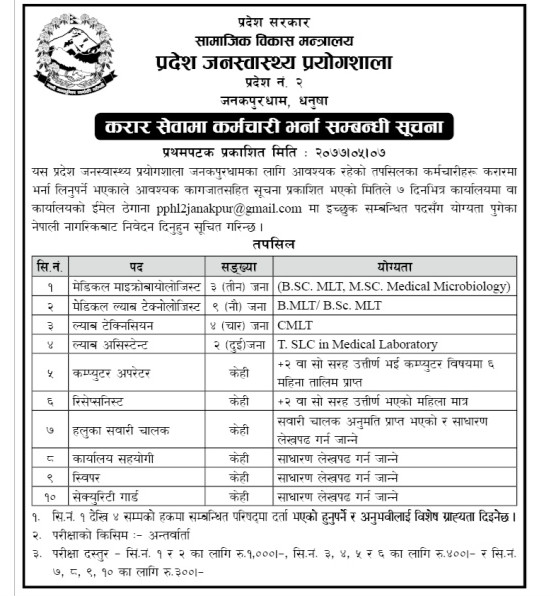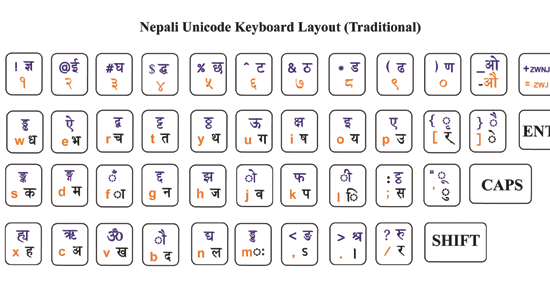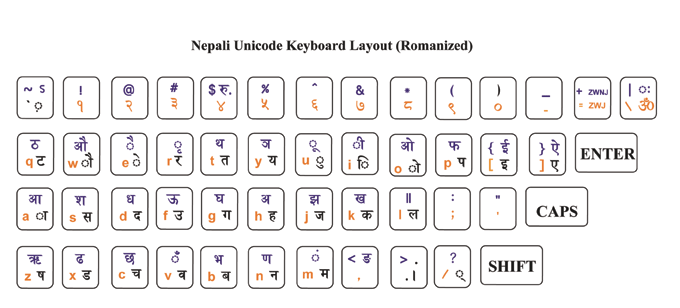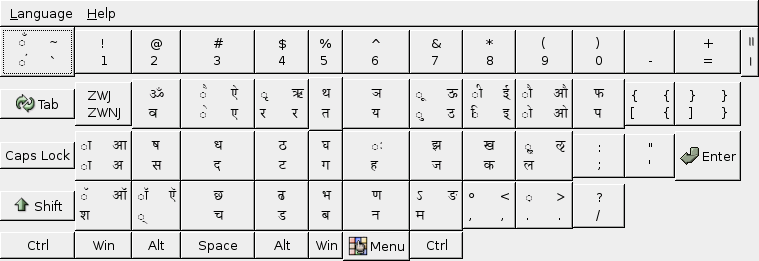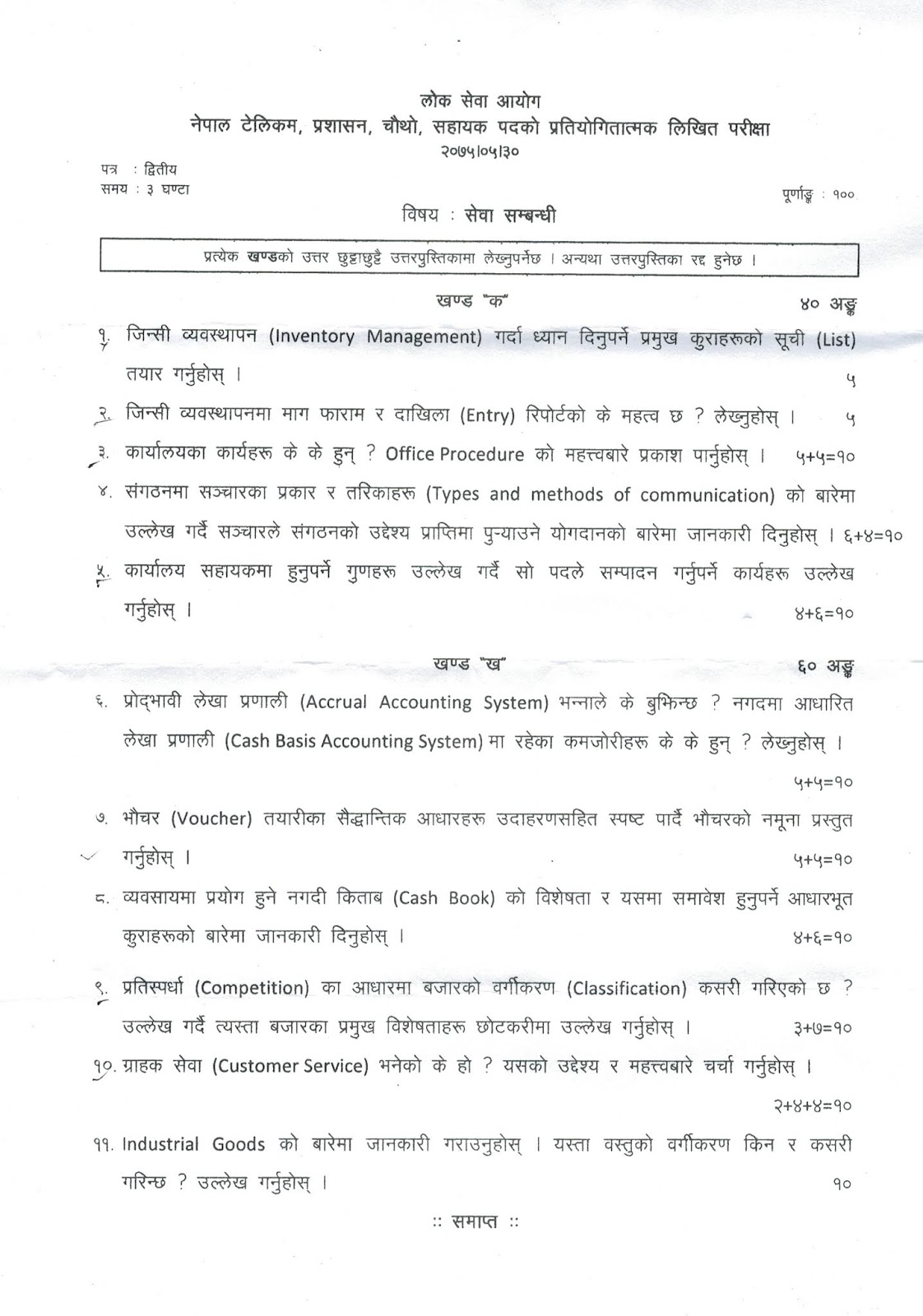
Regular font unicode kalimati nepali unicode keyboard layout traditional pdf. A zero width non joiner zwnj is typically used to represent the separated form of characters that normally. Hence you can install it on windows 10 windows 8. Kalimati regular is a regular opentype font. Romanized nepali unicode with keyboard layout is available for download.
These letters can accessible to everywhere even any client computer doesnt avail nepali fonts. Zero width non joiner zwnj 1. Version 120 postscript name. Nepali unicode traditional layout nepali unicode traditional with this keyboard layout you can type normally as in old fonts but with some keys altered and rearranged with new typing style.
Kalimati unicode font is nepali unicode font. Kalimati font is popular amongst nepali native newspapers that dont use unicode and additionally well liked in offline typing. You can find more information about kalimati regular and its character map in the sections below. Kalimati sub family name.